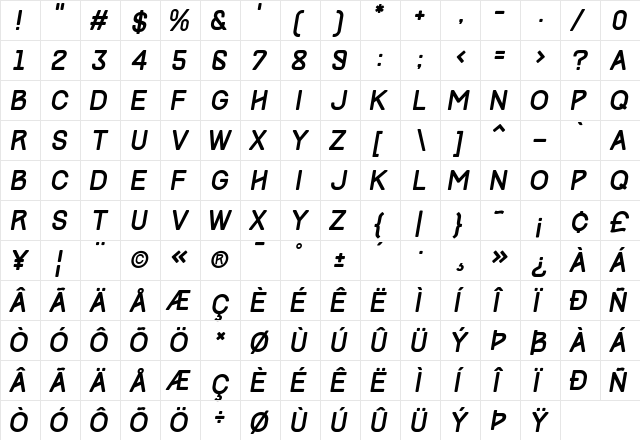
Track Italic
| Foundry | Gumpita Rahayu |
| Designer | Gumpita Rahayu |
Design Context for Track Typeface
Track is a composed and adaptable typeface that performs quietly and consistently across a wide range of design contexts. Its italic angle brings a sense of urgency and motion to the letterforms.
Pro Tip: Use Track for emphasis, pull quotes, and subheadings where its slanted energy can add rhythm to the layout.